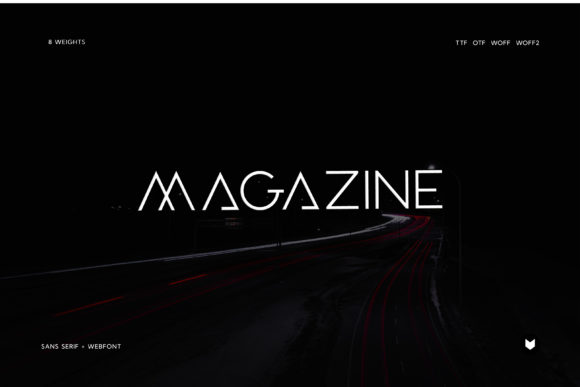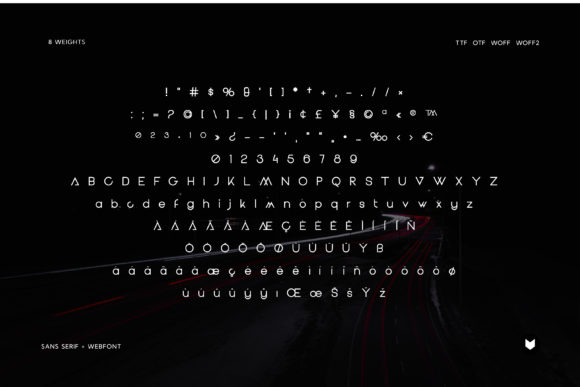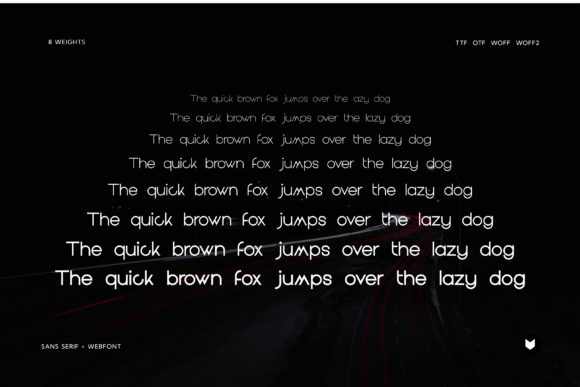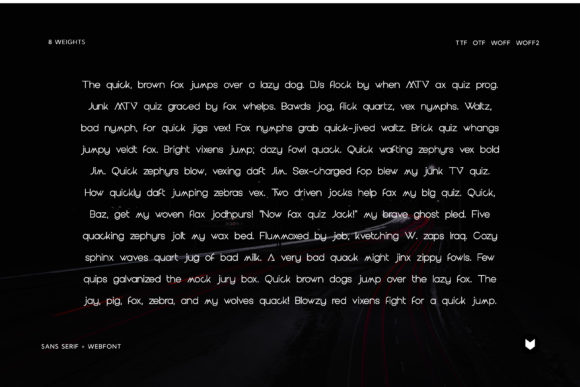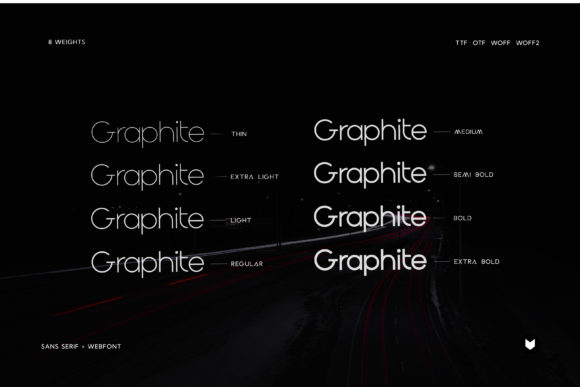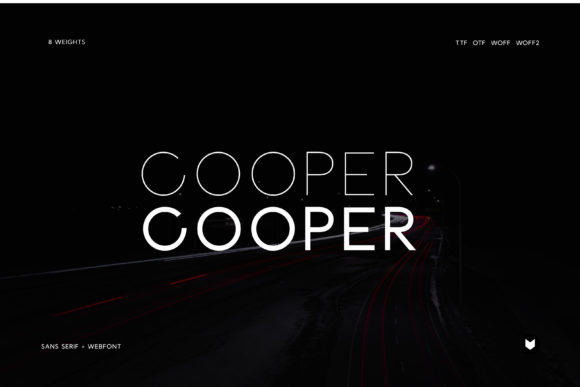
Introducing Graphite Font: The Ultimate Modern Display Font for Creative Projects
Are you a designer or crafter looking for a font that can elevate your creative projects to the next level? Look no further than Graphite Font, a minimalist and modern display font that is sure to make your designs stand out. With its sleek and sophisticated design, Graphite Font is the perfect addition to any project, from branding and advertising to packaging and digital media.
What is Graphite Font?
Graphite Font is a modern display font that is characterized by its clean lines, simple shapes, and minimalist aesthetic. It is a highly versatile font that can be used in a wide range of creative projects, from headlines and titles to logos and taglines. Its unique design makes it perfect for designers and crafters who want to add a touch of sophistication and elegance to their work.
Key Features of Graphite Font
So, what makes Graphite Font so special? Here are just a few of its key features:
- Minimalist design: Graphite Font has a clean and simple design that is perfect for modern designs.
- Highly versatile: Graphite Font can be used in a wide range of creative projects, from branding and advertising to packaging and digital media.
- Elegant and sophisticated: Graphite Font adds a touch of elegance and sophistication to any design.
- Easy to read: Despite its minimalist design, Graphite Font is highly legible and easy to read.
How to Use Graphite Font in Your Creative Projects
Graphite Font is incredibly easy to use and can be matched with a wide range of projects. Here are just a few ideas to get you started:
- Branding and advertising: Use Graphite Font to create bold and eye-catching headlines and titles for your brand or advertising campaign.
- Packaging design: Add a touch of sophistication to your packaging design with Graphite Font.
- Digital media: Use Graphite Font to create stunning digital media, such as social media graphics, blog posts, and website headers.
- Logos and taglines: Use Graphite Font to create unique and memorable logos and taglines for your brand.
Why Choose Graphite Font?
So, why should you choose Graphite Font for your creative projects? Here are just a few reasons:
- Unique design: Graphite Font has a unique and distinctive design that will set your projects apart from the crowd.
- High-quality: Graphite Font is a high-quality font that is designed to produce stunning results.
- Easy to use: Graphite Font is incredibly easy to use and can be matched with a wide range of projects.
| Font Name | Graphite Font |
| Author | Foxtype |
In conclusion, Graphite Font is a minimalist and modern display font that is perfect for designers and crafters who want to add a touch of sophistication and elegance to their creative projects. With its sleek and sophisticated design, Graphite Font is highly versatile and can be used in a wide range of projects, from branding and advertising to packaging and digital media. So why wait? Download Graphite Font today and see how it can elevate your designs to the next level!